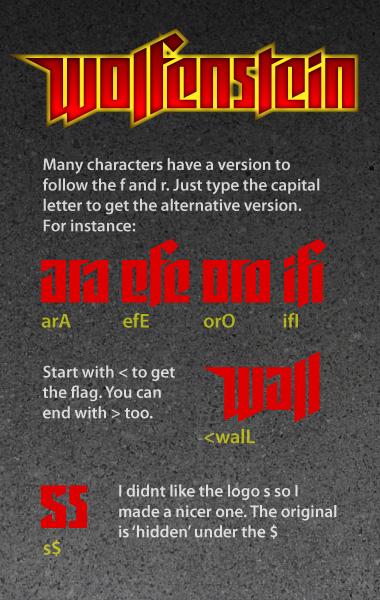
Great job, and nice alternate characters!
One of my favorite First Person Shooters -- both the original "3D" and the "Return to Castle" games.
A good design with some great alternates ... a well deserved TP.
Kudos of course to the creator(s) of the logo (and the great game).
Meanwhile, the second part of the restarted series came out (not counting "the old blood"). Maybe I should add Cyrillic (and, perhaps, diactrics) to this font?
Wolfenstein II: The New Colossus, I see… If you feel like cloning it too, Dmitriy Sychiov (Sychoff), you are welcome (though I needn't it myself FTM).